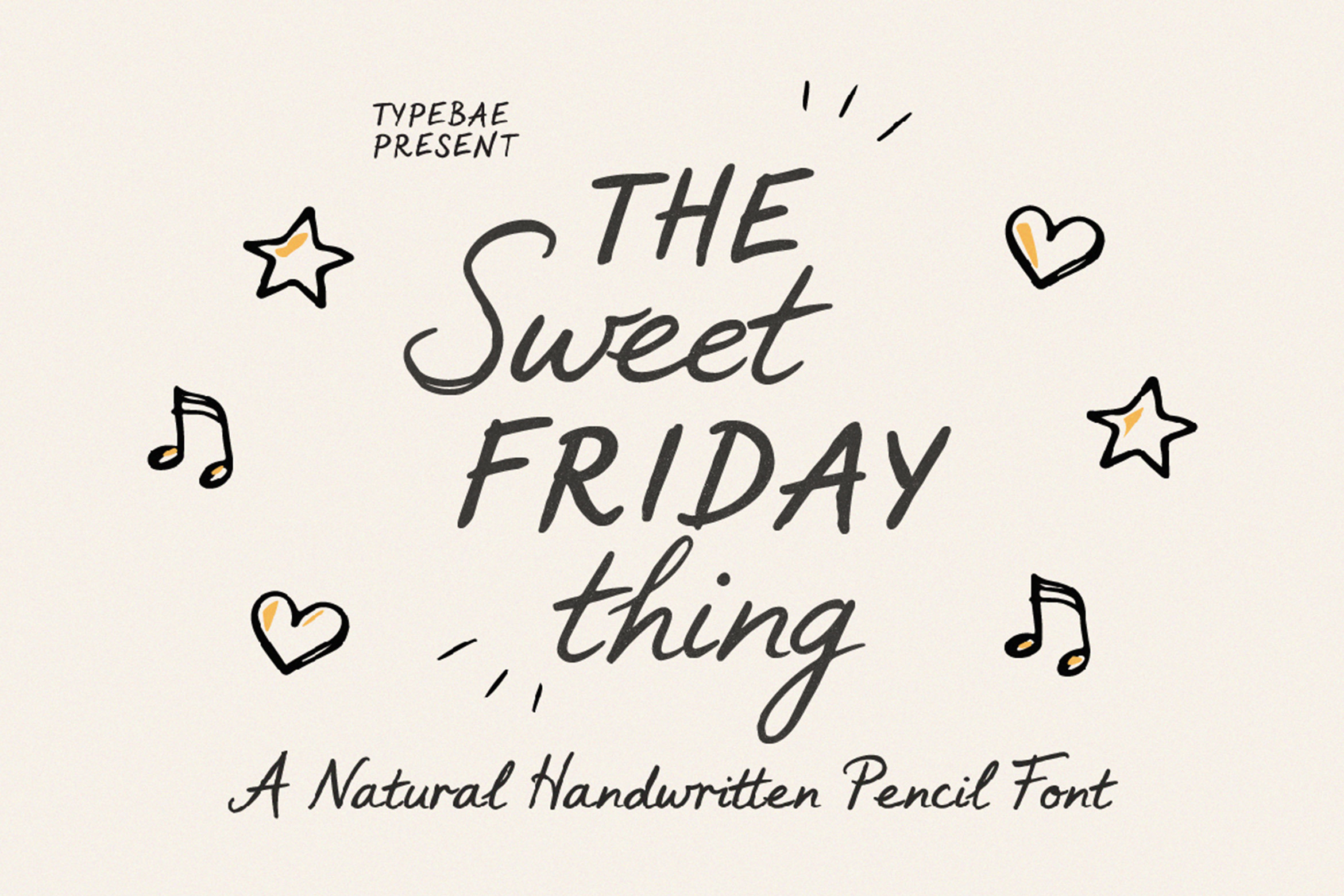
Sweet Friday Thing Font
Sweet Friday Thing Font is designed to recreate the authentic sensation of writing with a pencil on paper. Its imperfect lines, subtle rough edges, and natural flow make every word feel personal and alive. This font comes with two styles: Script and Caps, allowing you to mix expressive handwriting with bold statement lettering. Sweet Friday Thing is perfect for branding, quotes, packaging, social media, book covers, logos, and creative designs. Its natural messy pencil style adds a warm and personal touch to any project.
Create something honest and beautiful with Sweet Friday Thing Font.